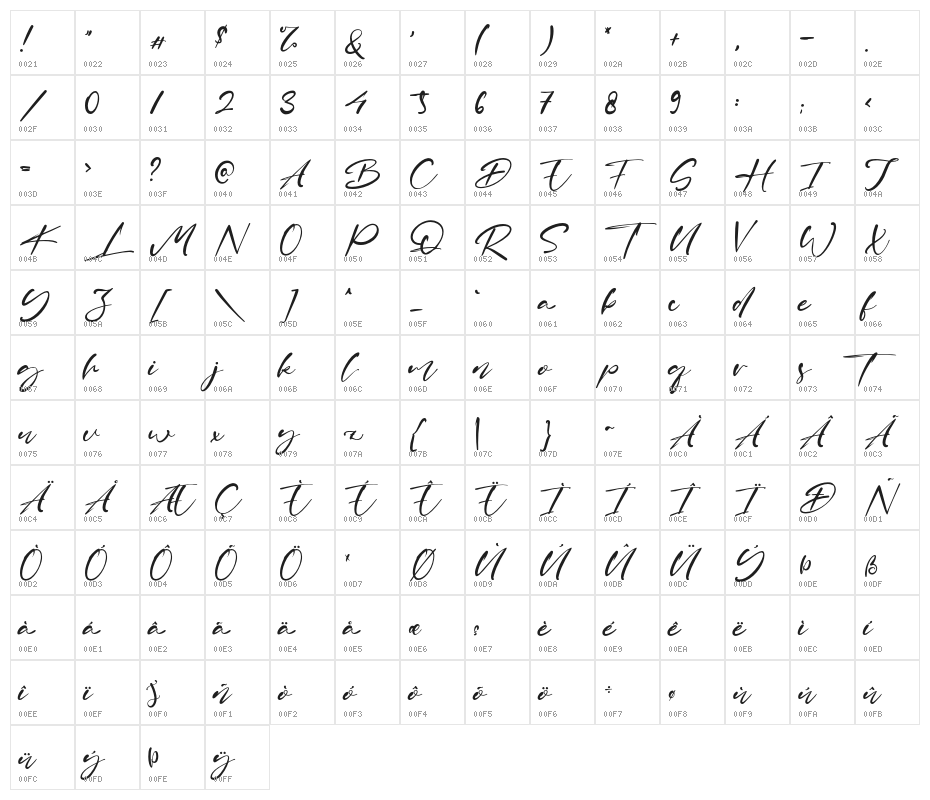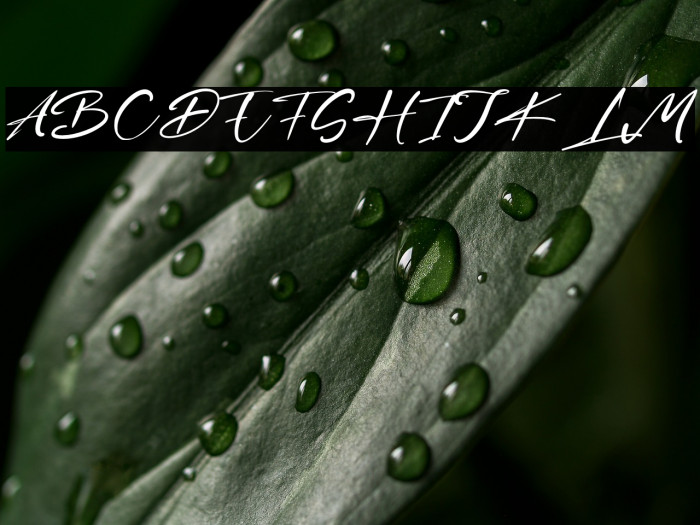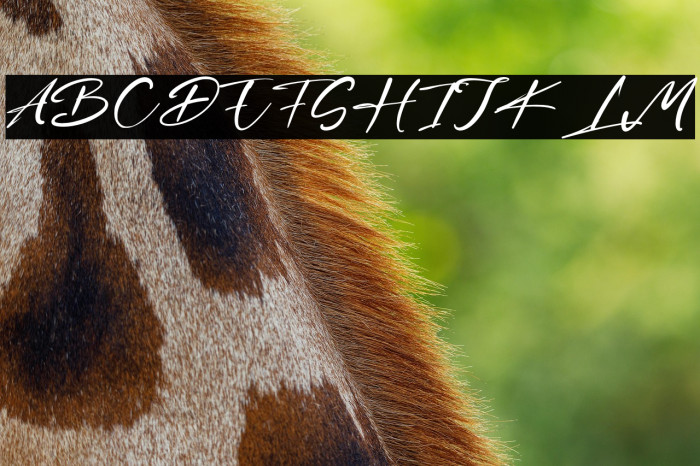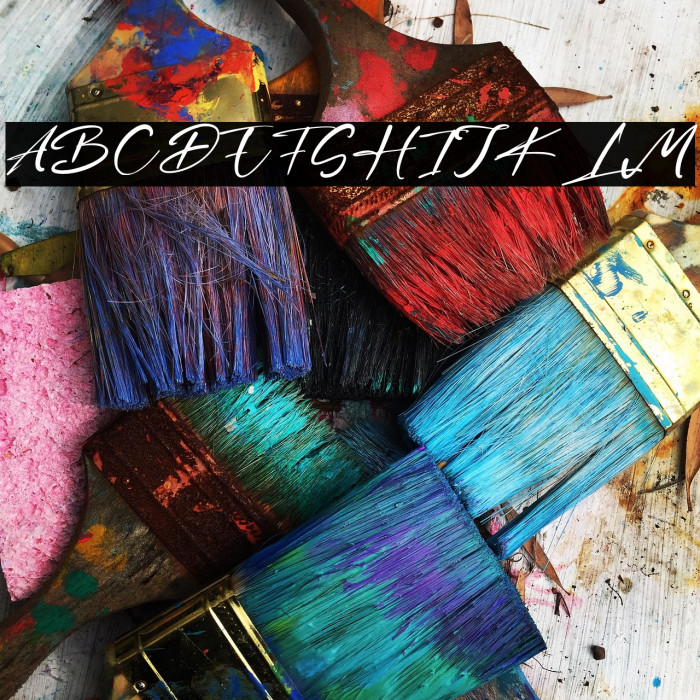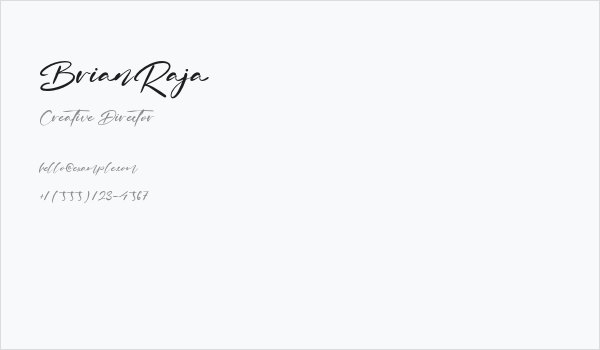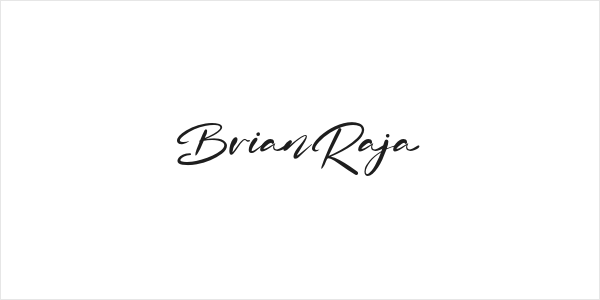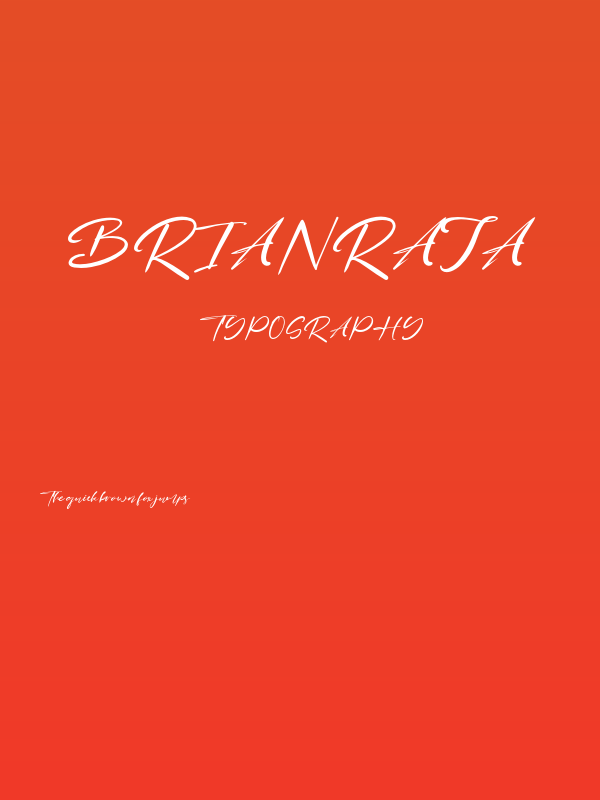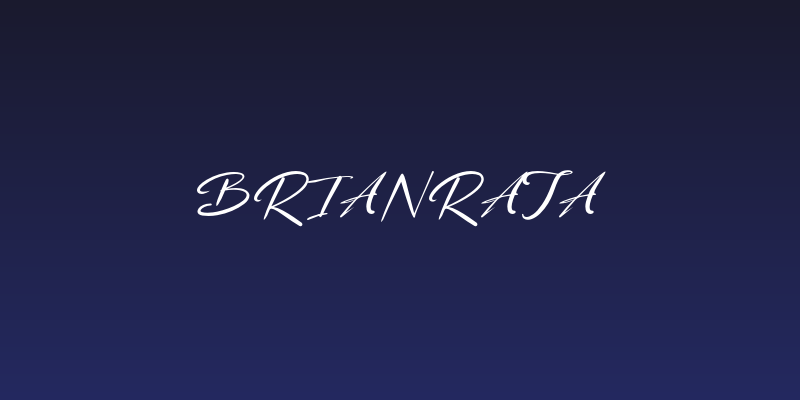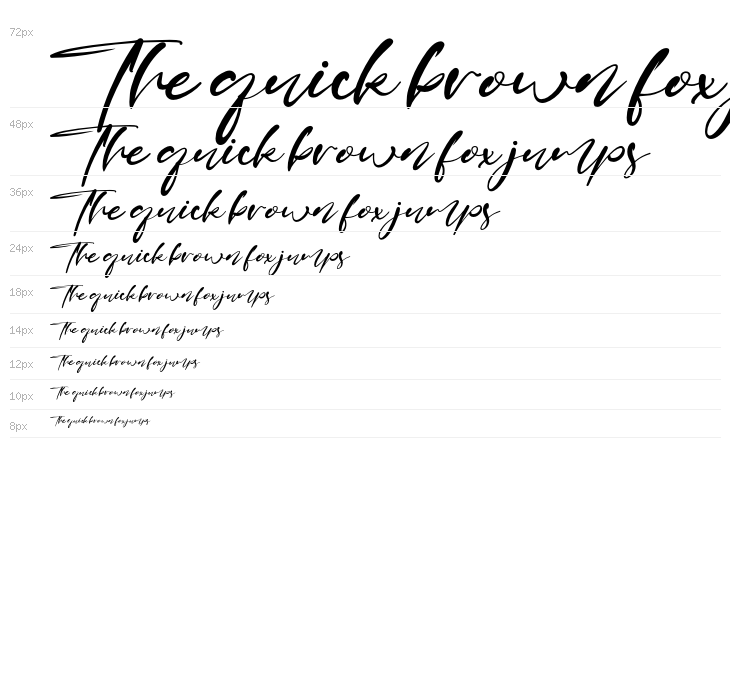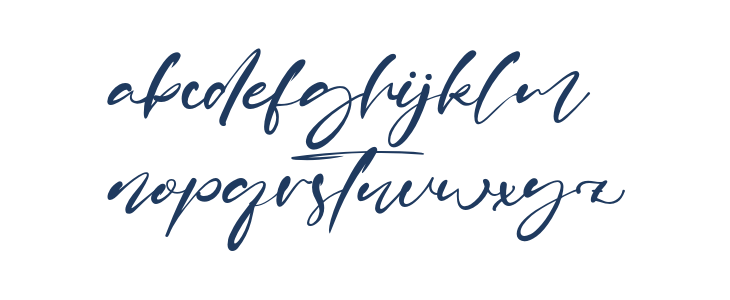
BrianRaja Font
BrianRaja Description
This font features a dynamic and expressive handwritten style, characterized by fluid strokes and a natural, flowing rhythm. The uppercase letters exhibit a sense of elegance and flair, with varying stroke widths that add a touch of sophistication. The lowercase letters maintain a consistent style, complementing the uppercase with their smooth curves and loops. Numbers and special characters are crafted with the same attention to detail, ensuring a cohesive look throughout. This font's organic feel and artistic flair make it suitable for projects that require a personal touch.